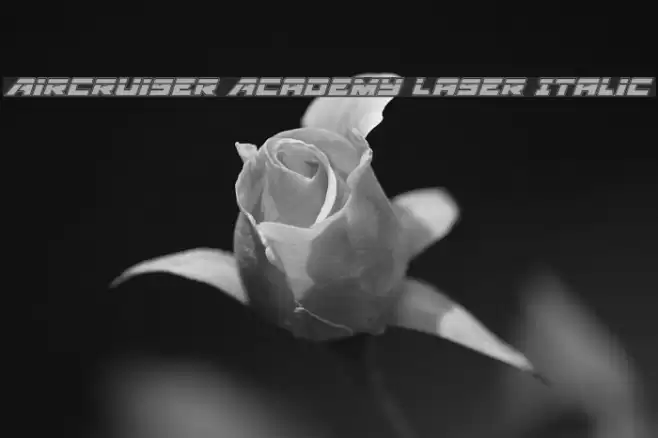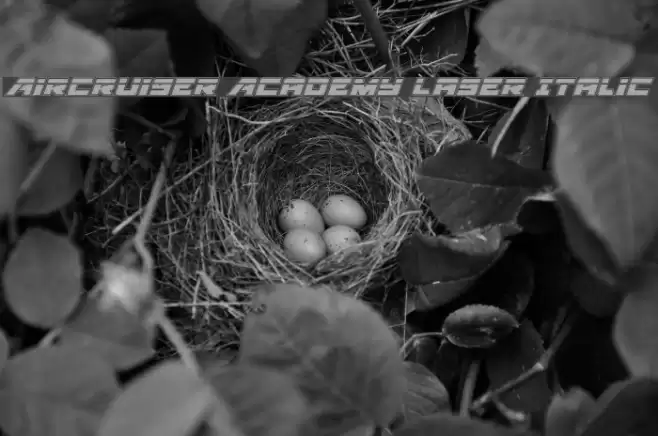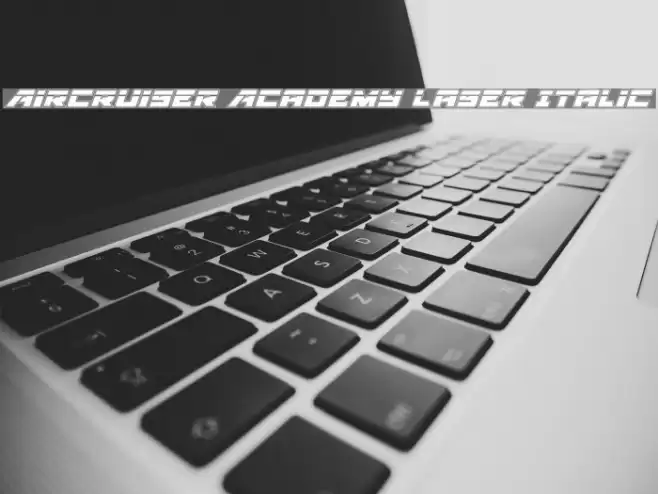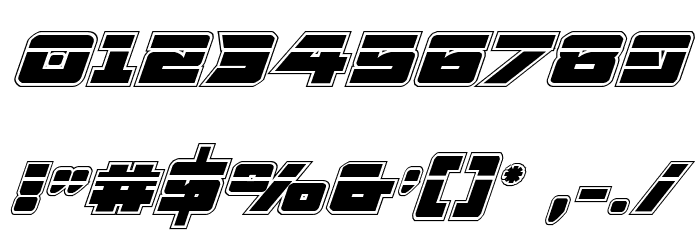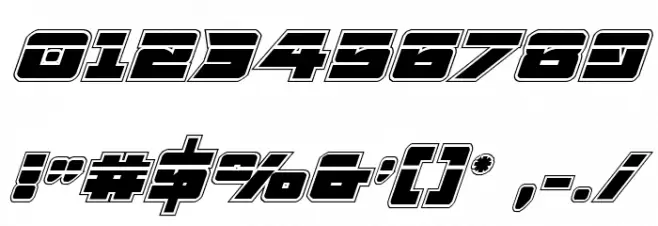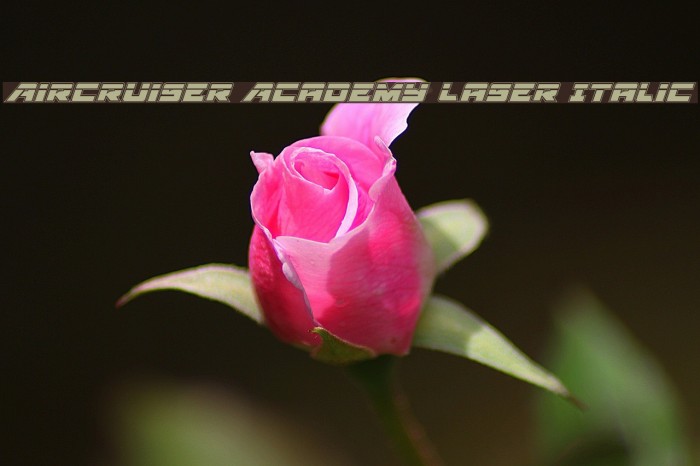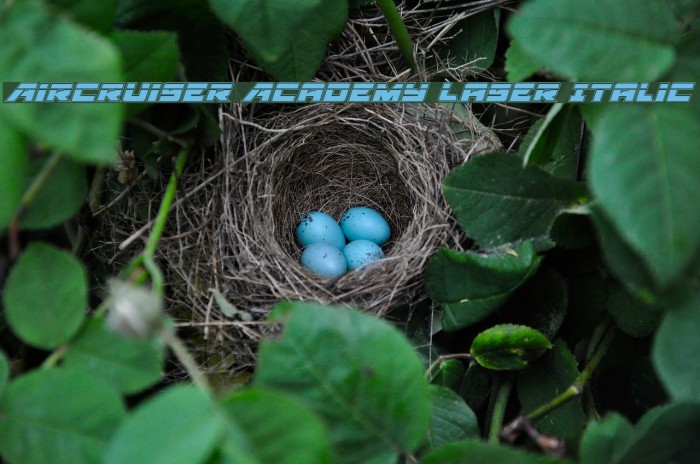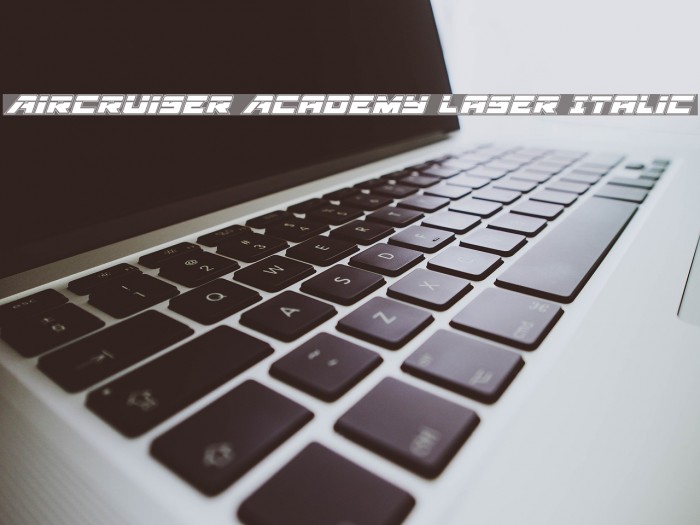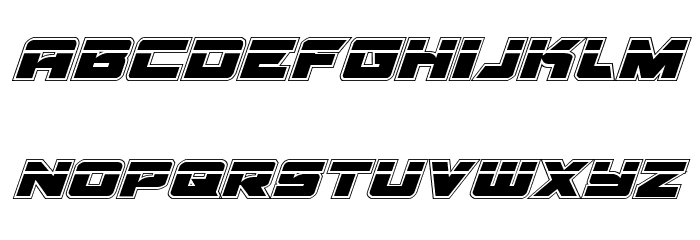
Aircruiser Academy Laser Italic Font
Aircruiser Academy Laser Italic Description
This font features a bold, futuristic design with a distinct italic slant, giving it a dynamic and energetic appearance. The characters are outlined with a double-layered effect, creating a sense of depth and movement. The angular and geometric shapes of the letters contribute to its modern and tech-inspired aesthetic. The uppercase and lowercase letters maintain a consistent style, while the numbers and special characters complement the overall look. This font is ideal for projects that require a bold statement and a modern touch.
A bold, futuristic italic font with a double-layered outline and geometric shapes from Uncategorized fonts.
- Proposed Projects: Ideal for sci-fi themed designs, tech branding, video game titles, and futuristic posters.